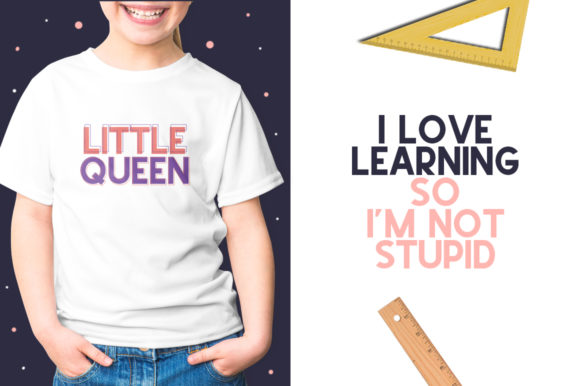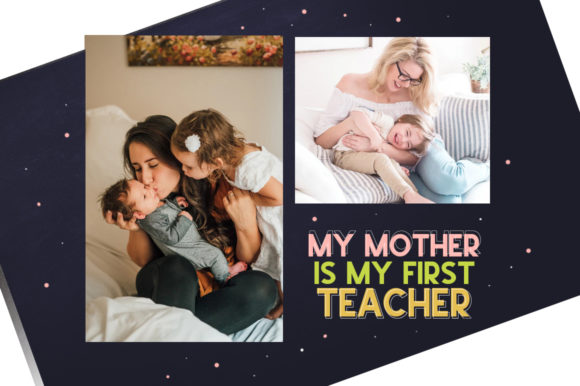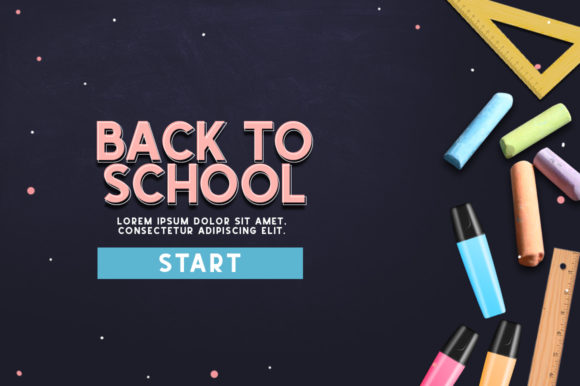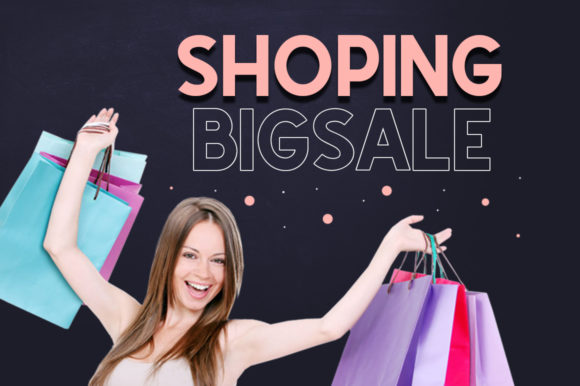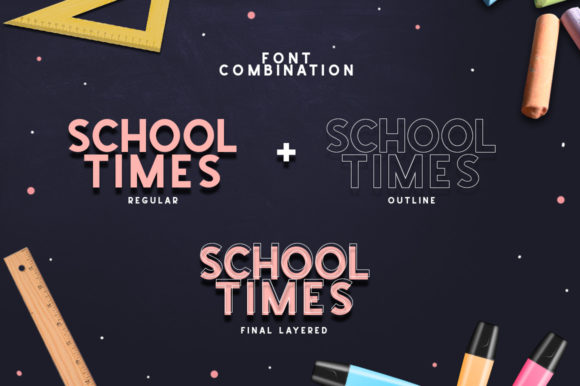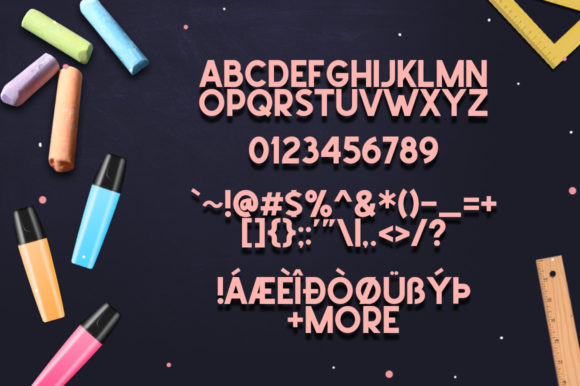
Introduction to School Times Font
Do you remember the excitement of designing your school’s logo or creating a poster for the annual school play? As designers, we’ve all been there – eager to bring our creative visions to life. One of the key elements that can make or break a design is the font. That’s where the School Times Font comes in – a stunning sans serif font that’s sure to inspire your next creative project.
As a valuable design resource, the School Times Font is available for free download, making it accessible to designers of all levels. With its high-quality design and transparent background, this font is perfect for a wide range of projects, from school-themed designs to educational materials. Whether you’re working on a project for a client or simply want to add a touch of personality to your own designs, the School Times Font is an excellent choice.
Key Features of School Times Font
- Unique, hand-drawn design perfect for creative projects, educational materials, and design resources.
- Perfect for school projects, educational materials, and other creative projects that require a fun and playful font.
Honest Review: School Times Font
I recently stumbled upon the School Times Font, and I must say it’s been a great addition to my design resources. The font is perfect for any creative project that requires a classic, yet playful touch.
- ✨ High-quality design: The School Times Font has a clear, crisp look that’s perfect for printing or digital use.
- ✨ Transparent background: This feature allows for seamless integration with any design or image, making it a great design resource.
- ⚠️ Limited font styles: While the School Times Font has a unique look, it’s limited to a single style, which might not be ideal for complex designs.
- ⚠️ No customization options: The font is available in a fixed format, which can make it difficult to adjust to specific design requirements.
Overall, I’m impressed with the School Times Font. It’s a great design resource for any creative project that requires a classic, yet playful touch. While it has some limitations, its high-quality design and free download make it a valuable addition to any designer’s toolkit.
The School Times Font is commonly used for:
- Creating educational materials, such as worksheets and handouts
- Designing school-related graphics, such as logos and posters
- Adding a vintage or classic touch to your design projects
Tips for Getting the Most Out of School Times Font
To get the most out of the School Times Font, try:
- Combining it with other vintage or classic fonts for a unique look
- Using it in conjunction with bold or italic text for emphasis
- Experimenting with different font sizes and colors to create visual interest
Alternatives to School Times Font
Playfair Display is a high-quality, elegant script font that can add a touch of sophistication to any creative project. It’s ideal for use in titles, headings, and other design elements where a luxurious feel is desired.
Compared to School Times Font, Playfair Display has a more refined and ornate appearance, making it a better choice for high-end designs. However, it may not be suitable for use in body text due to its complexity and high contrast.
Alex Brush is a free download font that offers a similar handwritten feel to School Times Font. It’s a great option for designers working on a budget or looking for a more casual, relaxed aesthetic.
Q: Does the School Times Font have a transparent background?
Yes, the School Times Font has a transparent background, making it easy to use in design projects that require a clear or transparent background. The font’s transparent background also allows for easy layering and blending with other design elements.